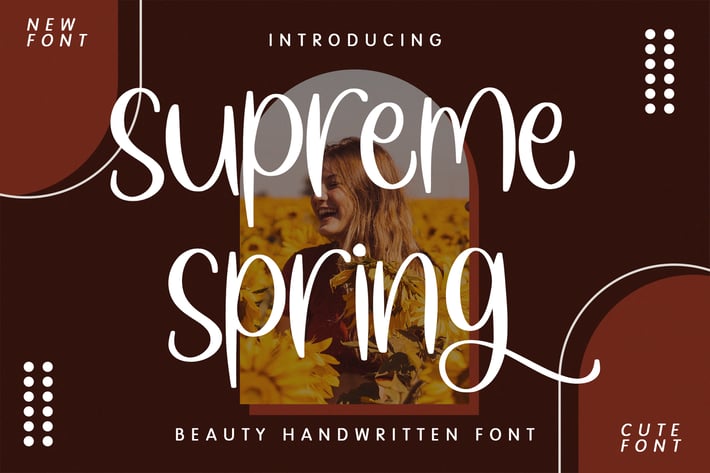
SupremeSpring - Beauty Handwritten Font
SupremeSpring - Beauty Handwritten Font contains a lowercase, uppercase, symbol, and also supports multi-language. There’s a lot of ligature in this font. SupremeSpring - Beauty Handwritten Font also comes with ligatures, stylistic alternates and many more.
this font suitable for fashion, branding, catalog and other design that you want.